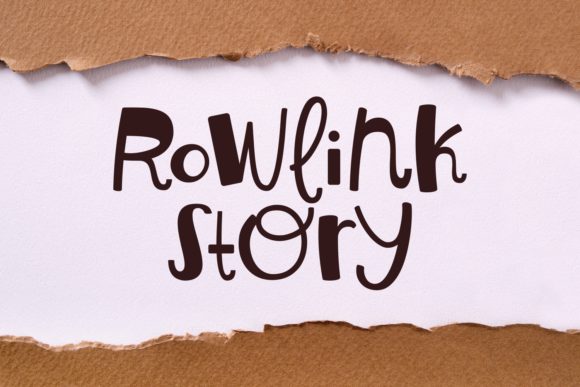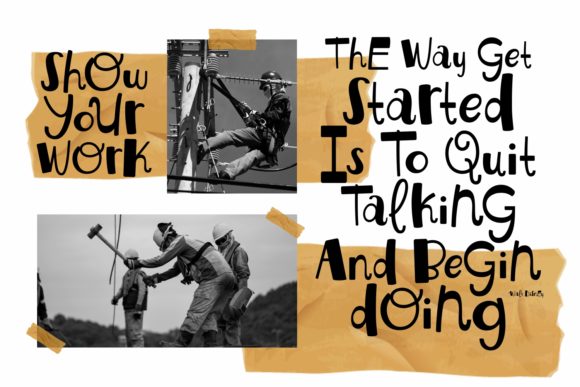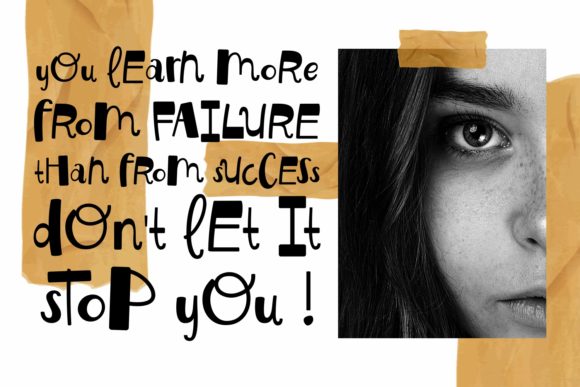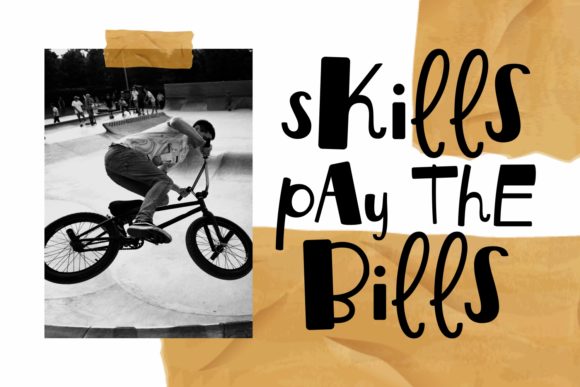
HomeScript FontsRowlink Story Font Script Fonts Rowlink Story Font FacebookXPinterestWhatsApp Rowlink Story Font Poster 2 Rowlink Story Font Poster 3 Rowlink Story Font Poster 4 About Rowlink Story Font Rowlink Story is a unique script font. It is perfect for branding, logos, posters and much more! DOWNLOAD NOW People also explored Planner Font Amsterland Font Niewiasta Font GhostKid AOE Pro Pinely Font Jumping Jess Font Paradise Point Inline Variable Monogram F | Monofont Caps F Font Minnimallisstic Font 359 0 TagsRowlink Story Font Previous articleHugwa FontNext articleAlitha Font LEAVE A REPLY Cancel reply Comment: Please enter your comment! Name:* Please enter your name here Email:* You have entered an incorrect email address! Please enter your email address here Website: Save my name, email, and website in this browser for the next time I comment. Personal Use Free Bethania Personal Use Free Read more about this font Vuldo Personal Use Free Read more about this font Boldist Personal Use Free Read more about this font Happy Rabbit Personal Use Free Read more about this font BLOG Elegant Wedding Invitation Fonts – Handwritten & Script Fonts Elegant Wedding Invitation Fonts Your wedding day is one of the most important moments of your life, and every detail matters—including your invitation design. Our... Using Fonts in Digital Marketing: Tips to Strengthen Your Brand Identity How to Install and Use Fonts on Windows, macOS, and Web Projects The 10 Best Handwriting Fonts to Add Personality to Your Designs